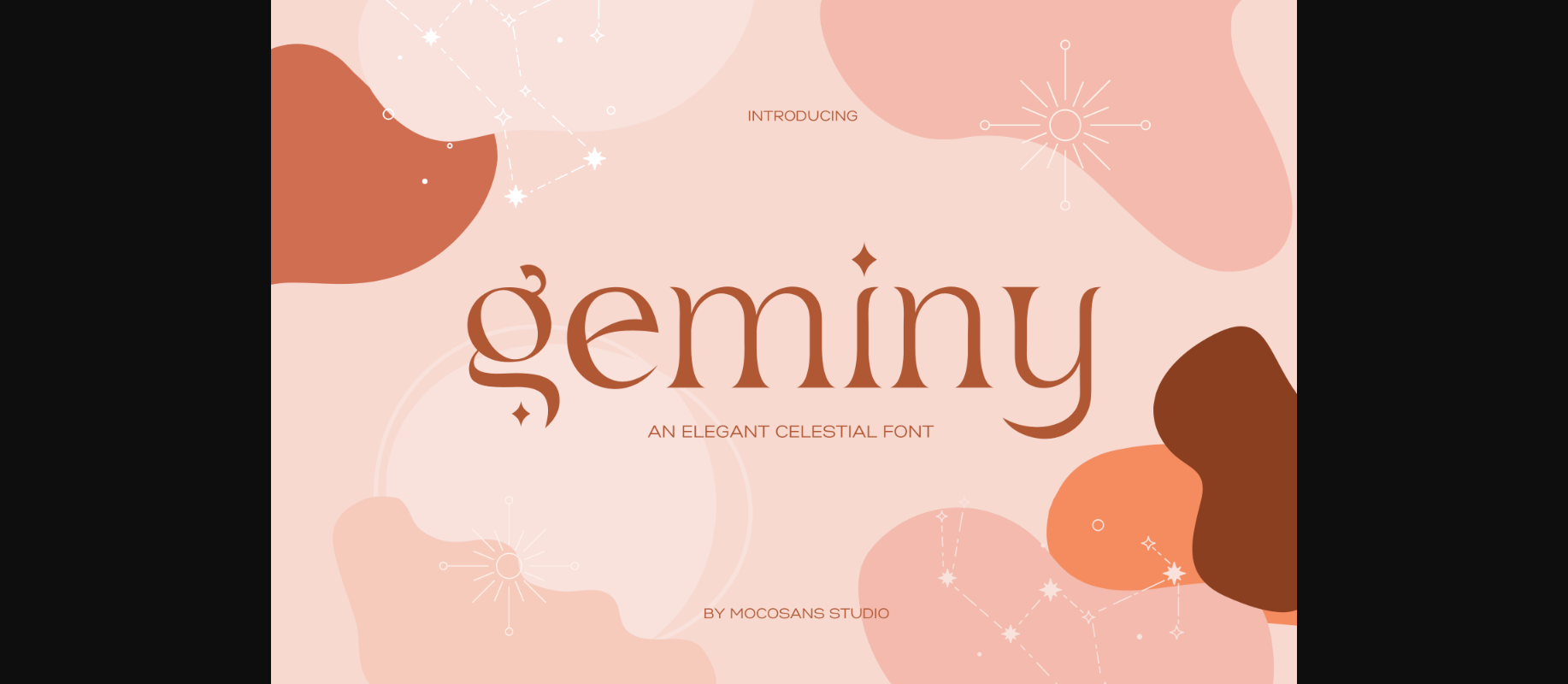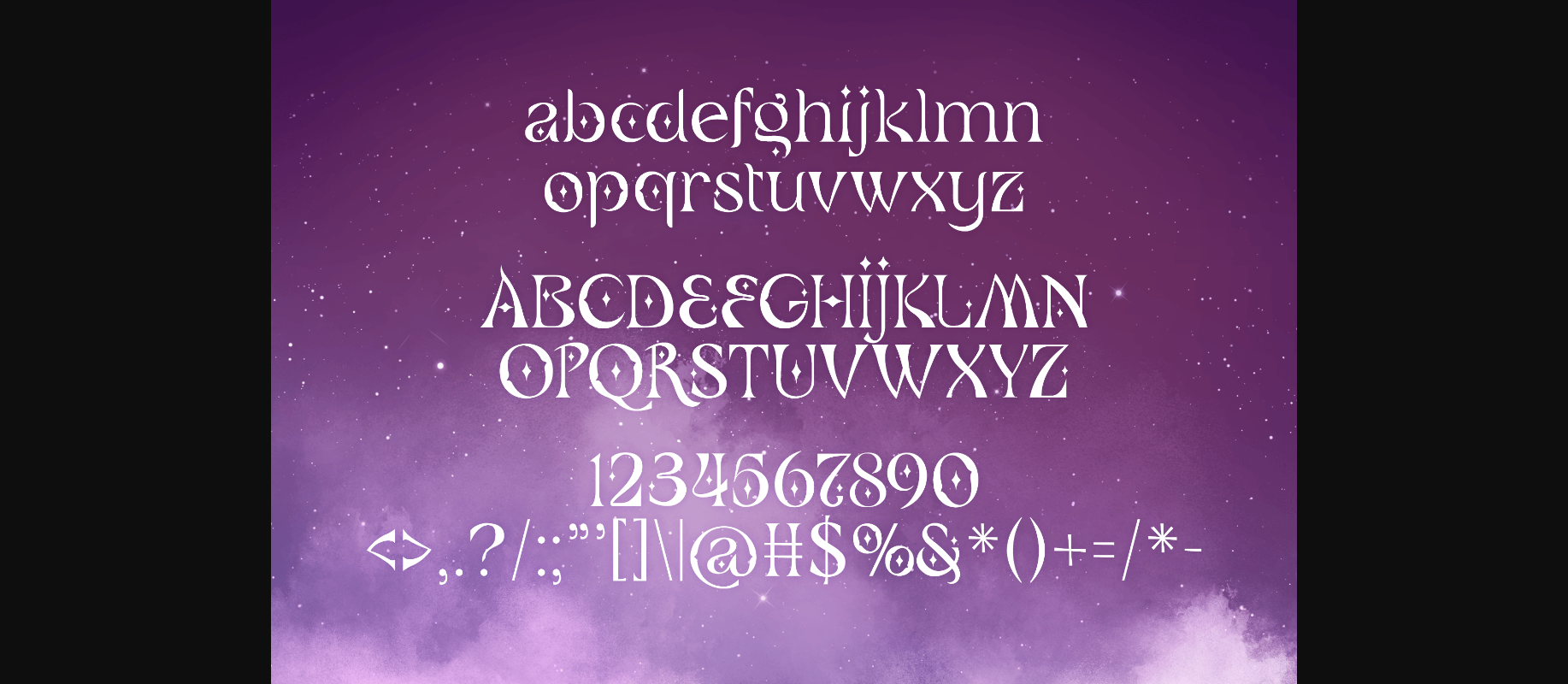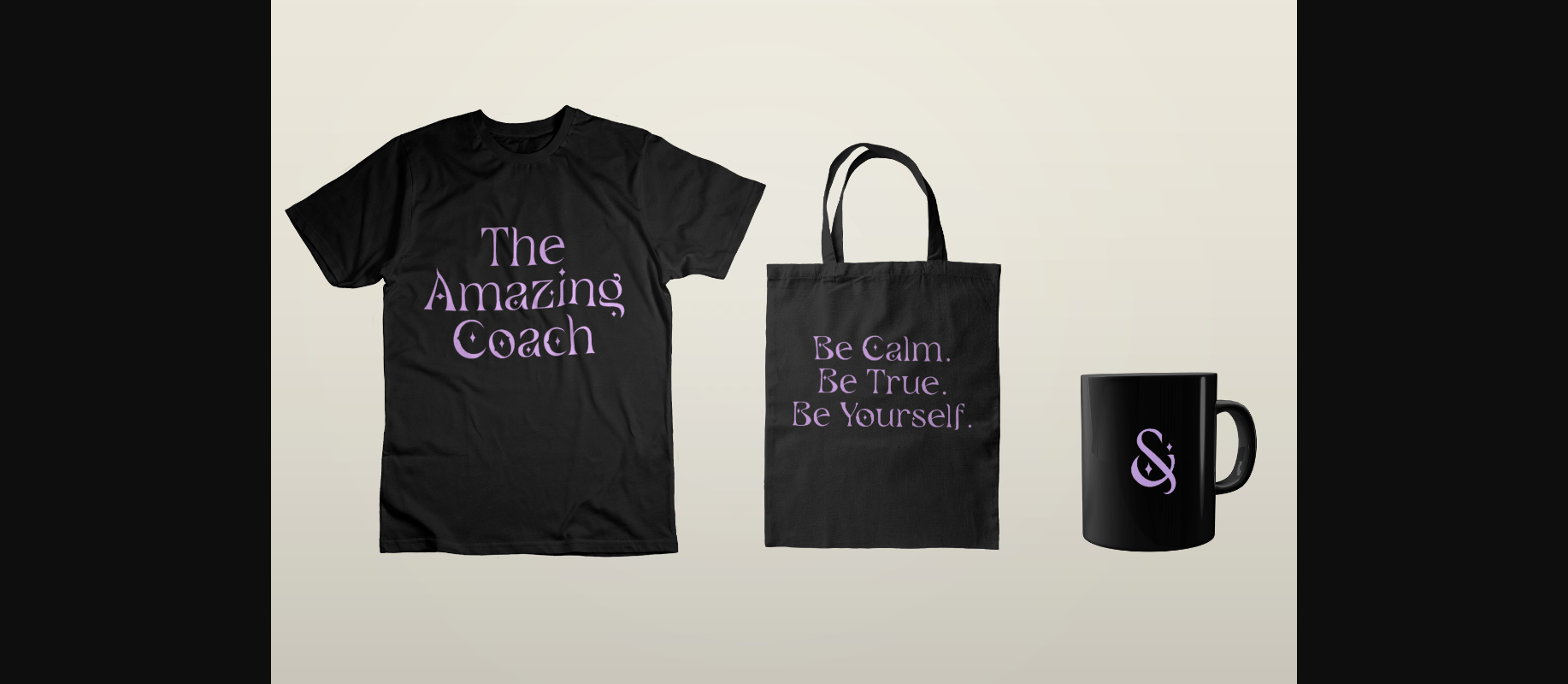
About Geminy Font
Geminy is a mixture of retro-modern style with a quirky look. The natural stroke creates a cute & casual feel that will be perfect for various astrological projects. Use this unique decorative font to create a playful layout, solid headline, strong title, logos, and many more!